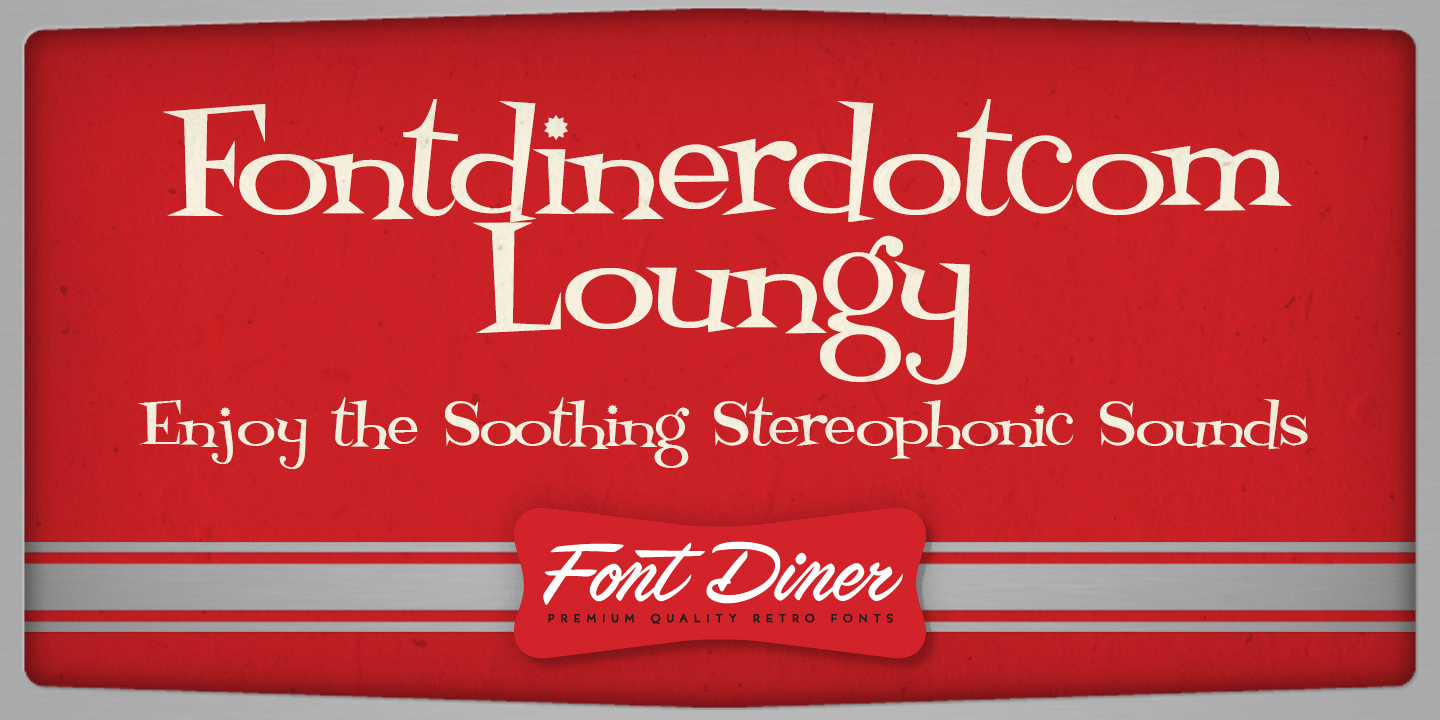
The lights are low, the jazz is smooth, and the crowd is swingin\’, Libation in one hand, the other one snappin\’ to the hi-fi rhythms of the coolest cats this side of mellowsville!